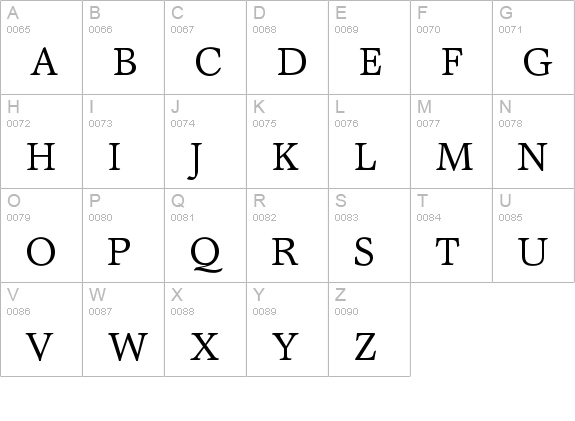
Garth Graphic Font Details
Garth Graphic font is a versatile and modern typeface that combines sleek lines with a bold presence. Designed for impact and readability, this font is perfect for a wide range of design projects, from branding to editorial layouts. With its clean and contemporary aesthetic, Garth Graphic font adds a touch of sophistication to any design. What sets Garth Graphic font apart is its unique combination of elegance and strength, making it suitable for both professional and creative applications. Whether you're designing a logo, poster, or website, this font will make your text stand out with its distinctive style. Best of all, Garth Graphic font is available for free download at FontsMarket.com. So, you can easily access this premium-quality font without any cost. Don't miss the opportunity to enhance your designs with the modern and stylish Garth Graphic font today!